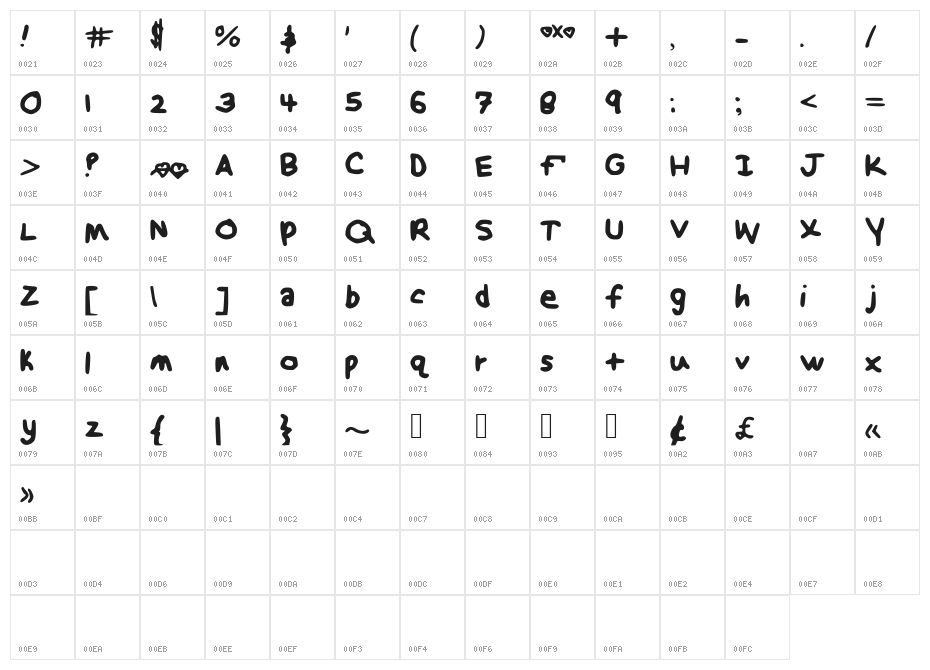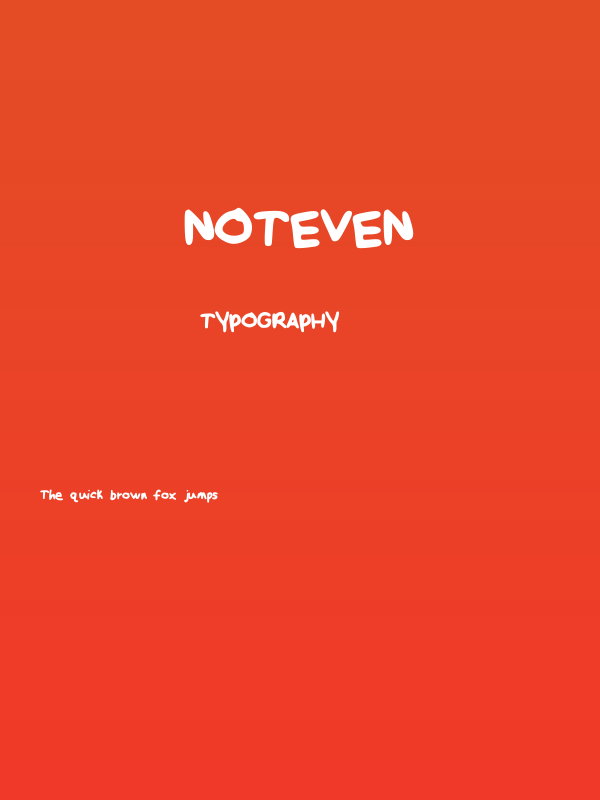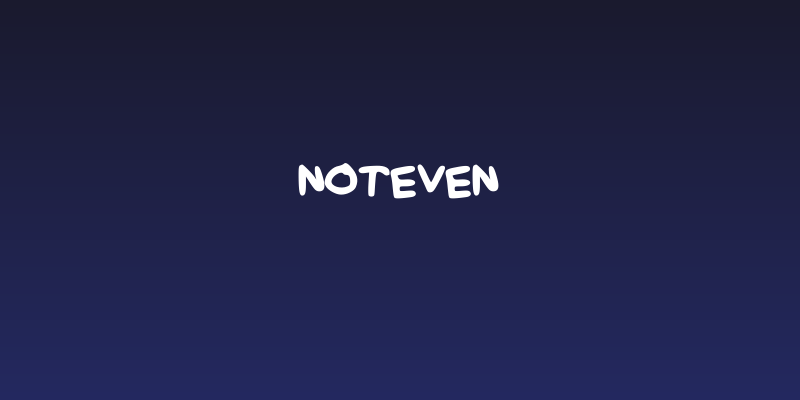
NotEven Font
NotEven Description
This font features a playful and bold handwritten style, characterized by its thick, rounded strokes and slightly irregular letterforms. The uppercase and lowercase letters maintain a consistent weight, giving the font a cohesive appearance. The numbers and special characters follow the same design principles, ensuring uniformity across all glyphs. The overall look is casual and friendly, making it suitable for projects that require a personal touch. The font's informal nature is emphasized by its organic shapes and the slight variations in character height and width, which add to its charm.
| Overall Style | Playful |
| Use Case | Headlines, Logos, Informal Text |
| Proposed Projects | Ideal for children's books, playful branding, greeting cards, and informal posters. |